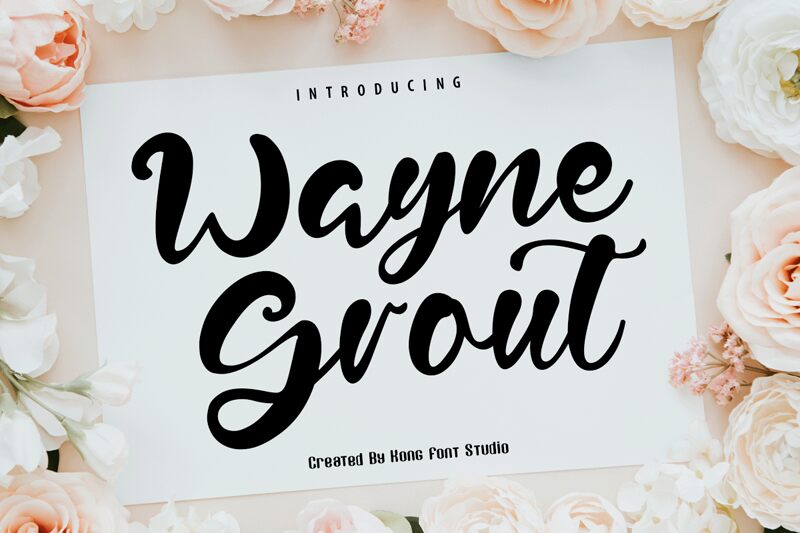
Wayne Grout
Wayne Grout is a charming semi-bold font designed by Kong Font that brings a touch of personalization to your projects. With its handwritten style, this font adds a unique warmth to any design, making it ideal for creative projects such as branding, logo design, greeting cards, and invitations. The semi-bold weight of Wayne Grout provides just the right amount of emphasis without overpowering the design. Whether you're creating a wedding invitation or designing a logo for your business, Wayne Grout is the perfect font to add that personal touch while still maintaining a professional look and feel.